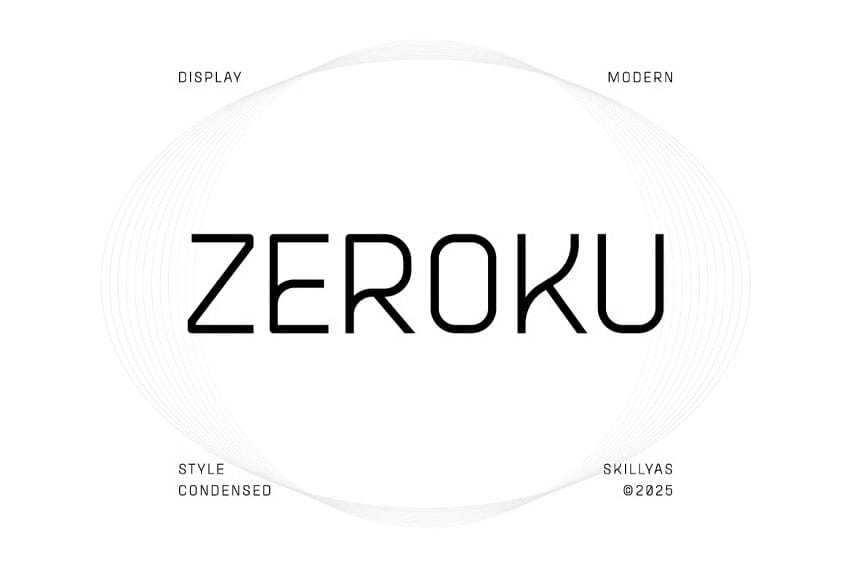
Zeroku Font is a Sleek, Contemporary Sans-serif Font with Clean Lines and a Minimalist Aesthetic. It is perfect for branding, websites, tech designs, and modern layouts, offering clarity, versatility, and a professional look.